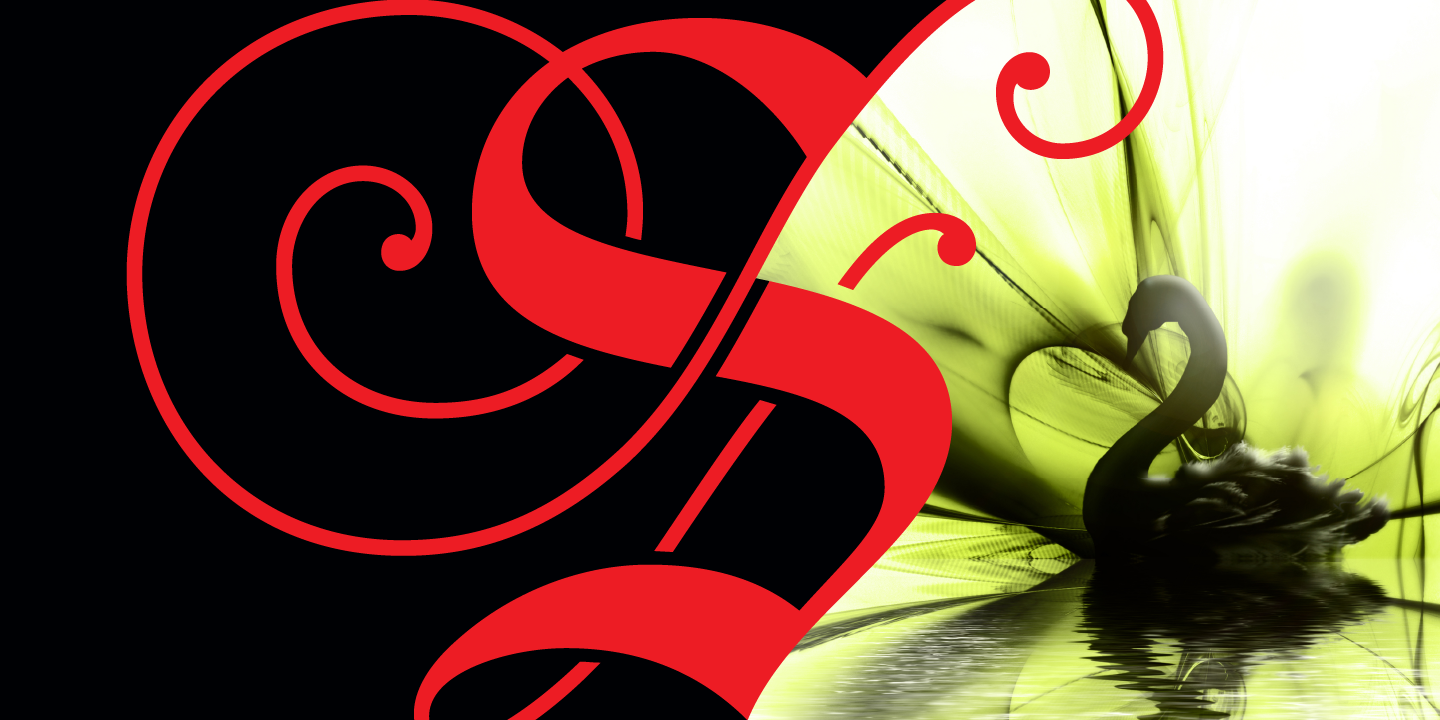
Black Swan BF Font Free Download is an elegant, high-contrast serif typeface that blends sophistication with dramatic flair. Ideal for editorial layouts, luxury branding, logos, invitations, packaging, and fashion-related designs, this font exudes refinement and boldness. With its delicate curves and striking letterforms, Black Swan BF Font brings a timeless yet modern aesthetic to any project needing a touch of class.
With Black Swan BF Font Free Download, you’ll receive a complete set of uppercase, lowercase, numbers, and essential punctuation, providing versatility for a wide range of design applications. Whether you’re crafting magazine titles, product labels, event posters, or promotional materials, this font maintains excellent readability while making a bold visual statement.
Elevate your creative projects with Black Swan BF Font Free Download. Its elegant and powerful design makes it a standout choice for visuals that demand sophistication, helping your work leave a lasting impression.